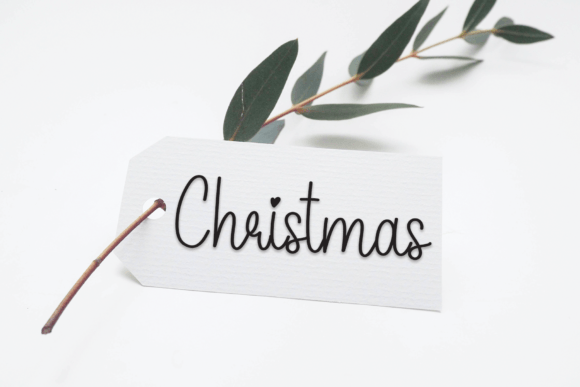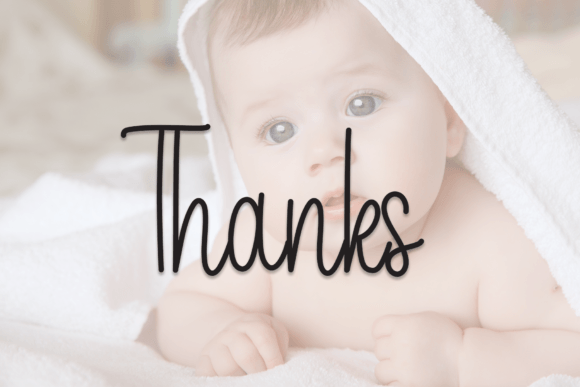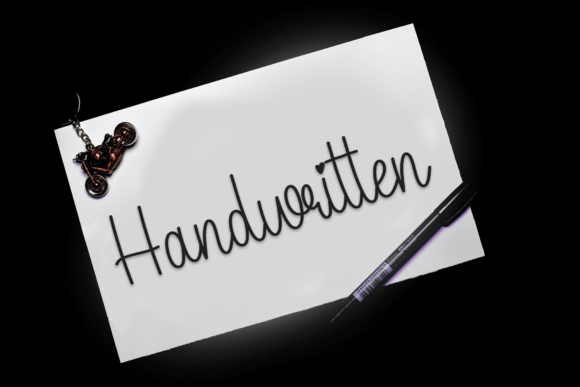
Introduction to Kiddy Font
As a designer, there’s nothing quite like the thrill of bringing a creative project to life. You’ve spent hours brainstorming, sketching, and refining your idea, and finally, it’s time to add the finishing touches. But, what if you could give your design that extra special something, that personal touch that makes it truly unforgettable? That’s where Kiddy Font comes in – a beautiful, high-quality handwritten script font that’s sure to add a touch of whimsy and charm to any project.
Whether you’re working on a wedding invitation, a thank you card, or a logo, Kiddy Font is the perfect design resource to help you create something truly special. With its transparent background and free download option, you can easily incorporate this lovely font into your creative project without breaking the bank. And, as a designer, you know how valuable a high-quality font can be – it’s the difference between a good design and a great one.
Key Features of Kiddy Font
- Features a unique, playful design that is perfect for children’s products, educational materials, or any project requiring a youthful tone.
Honest Review: Kiddy Font
I recently had the chance to work with Kiddy Font for a creative project, and I must say, I was quite impressed. This free download is a high-quality design resource that can add a playful touch to any design.
What works well with Kiddy Font is its versatility. It’s available in several weights and styles, making it easy to use in various design contexts. The font also features a transparent background, which allows for seamless integration into any design. ✨
Here are some of the key features I liked about Kiddy Font:
- Playful and modern design
- Available in several weights and styles
However, I did encounter a few limitations with Kiddy Font. ⚠️ The font may not be suitable for professional or formal designs, as it can come across as too playful or childish. Additionally, some users may find the font to be a bit too bold or overwhelming.
Overall, I was quite pleased with Kiddy Font and would recommend it to designers looking for a fun and creative font for their projects. While it may not be suitable for every design context, it’s a great addition to any designer’s toolbox.
How to Use Kiddy Font
Kiddy Font is ideal for children’s books, educational materials, and family-friendly designs. You can also use it for social media graphics, logos, and marketing materials. To get the most out of Kiddy Font, experiment with different font sizes, colors, and styles to create unique and eye-catching designs.
Alternatives to Kiddy Font
Comic Sans MS is a popular alternative to Kiddy Font, known for its playful and informal feel. It’s perfect for creative projects that require a friendly tone, such as children’s books, newsletters, or social media graphics.
When to use: Casual, informal designs that require a lighthearted atmosphere.
Comparison to Kiddy Font: Comic Sans MS has a more rounded and cursive feel, making it suitable for projects that need a softer look.
Pacifico is a high-quality, free download font that offers a modern and elegant alternative to Kiddy Font. Its cursive script style is perfect for creative projects that require a sophisticated tone, such as wedding invitations, event promotions, or luxury brand designs.
Q: Does Kiddy Font have a transparent background?
Yes, Kiddy Font has a transparent background, making it ideal for use on top of images or videos. This feature allows you to create a seamless design experience and add a creative touch to your project. Simply use the font in a design application that supports transparent backgrounds, such as Adobe Photoshop or Illustrator.